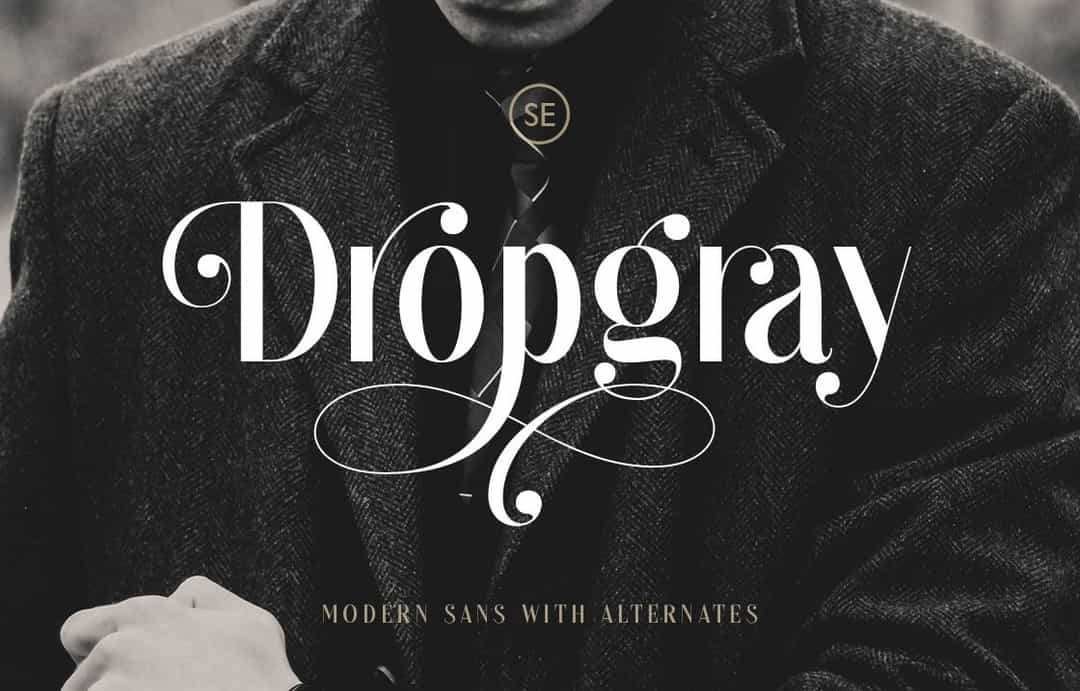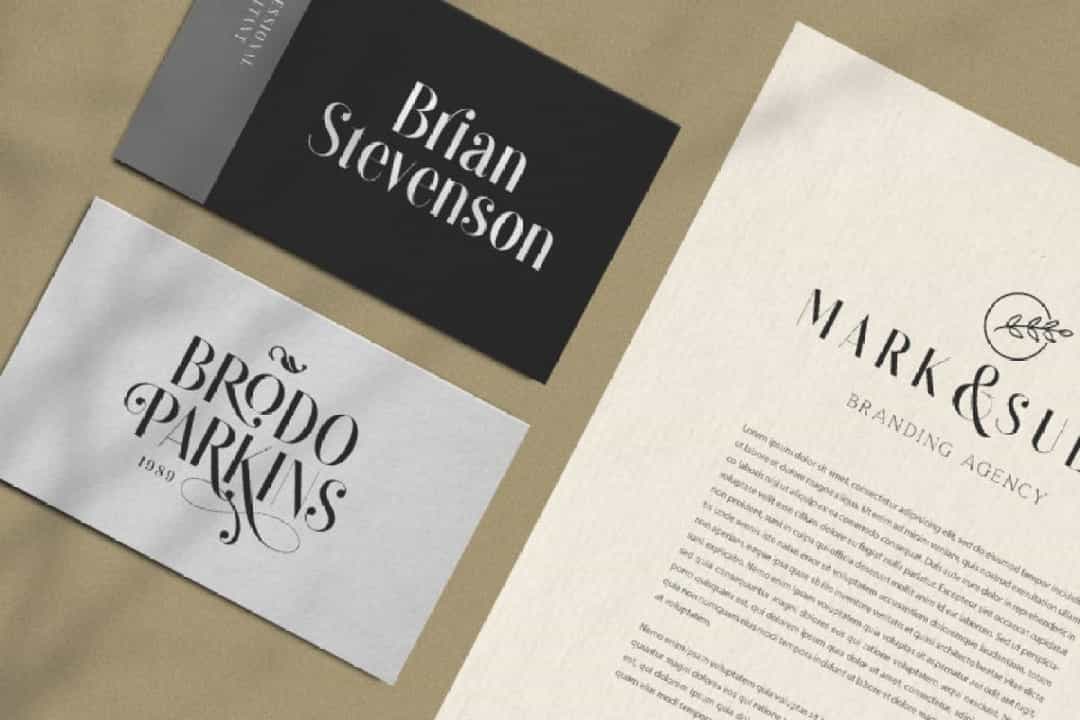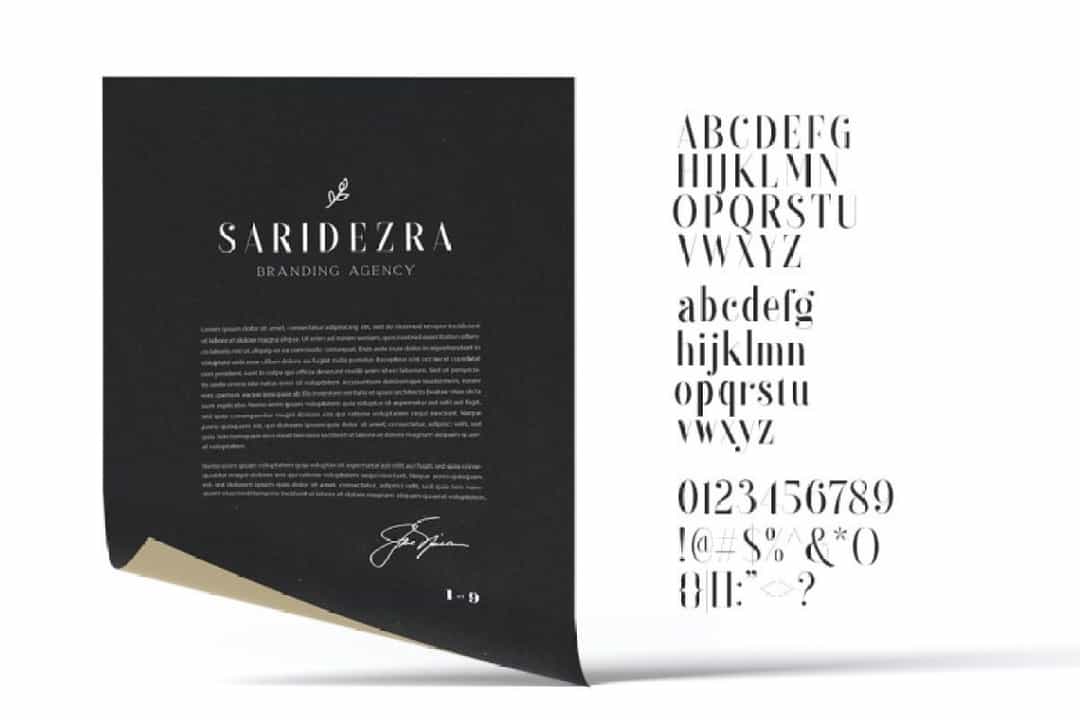
Dropgray is an elegant sans serif font which features many different font styles to enhance any logo or presentation and grab people’s attention! Plus it’s compatible with Multi Language support and even PUA encoded!